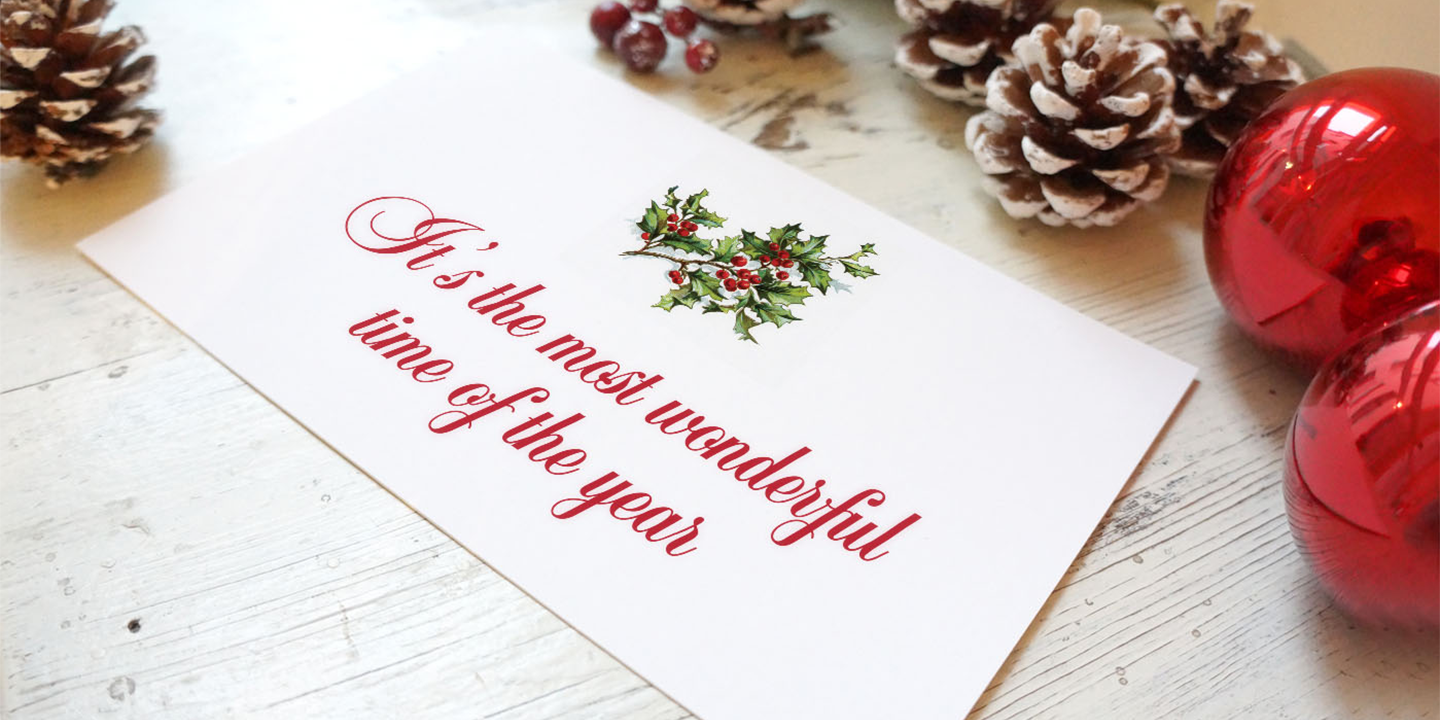
Balmoral Font is a regal and exquisitely distinguished typeface, perfectly suited for projects that aim to evoke a sense of timeless elegance, rich heritage, and undeniable prestige. Imagine it gracing the luxurious branding for a high-end estate, adding an authentic and sophisticated touch to formal event invitations, or providing a grand aesthetic for bespoke product packaging and fine art catalogs. It's also an excellent choice for crafting memorable headlines for exclusive magazines, designing unique certificates of authenticity, or bringing a polished, authoritative feel to historical documents and commemorative publications. If you're looking to convey tradition, grace, and an undeniable sense of classic excellence, Balmoral Font is an outstanding selection.
What makes Balmoral Font so exciting? It’s its unparalleled ability to combine a majestic presence with meticulous attention to detail, resulting in a font that feels both profoundly traditional and remarkably versatile. This font often features elegant flourishes, refined serifs, or a flowing script quality that gives it an undeniable charisma and visual richness, reminiscent of royal decrees or handcrafted luxury. Despite its often ornate flair, Balmoral Font is meticulously designed to maintain excellent readability, ensuring your message is communicated beautifully and with a dignified, captivating tone. Designers will appreciate its versatile application in lending an air of established credibility and artistic integrity to any project, ensuring that your visuals resonate with both contemporary taste and a timeless sense of grand beauty.
The Balmoral Font family is typically designed to showcase a singular, beautifully crafted display or script style that perfectly embodies its unique appeal. While it may not feature extensive weight variations like a traditional text font, its strength lies in its inherent personality and often includes a rich set of stylistic alternates, ligatures, or swashes that enhance its elaborate aesthetic. These subtle details ensure that Balmoral Font maintains its cohesive and captivating look across various applications, from elegant brand endorsements to charming personal correspondence. Discover the captivating allure of Balmoral Font Free Download and infuse your designs with an unforgettable sense of royal splendor.